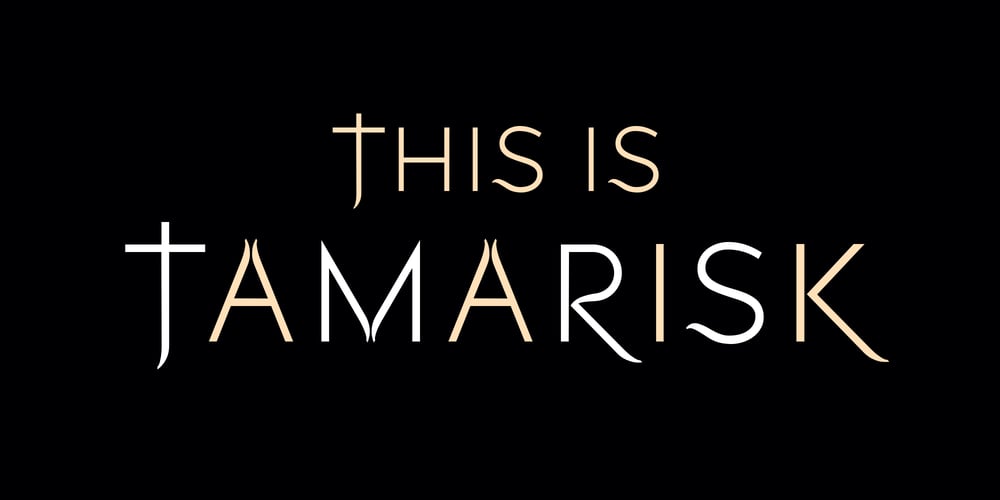
Tamarisk Font Family was designed by David Szabo and published by LostandFoundry. Tamarisk contains 2 styles and family package options. Tamarisk is another expressive new ‘crossover’ font for designers from LostandFoundry. This beautiful font has the look and feel of a modern sans-serif typeface, but with subtle ‘serif-like’ touches that give it a unique identity of classic, yet contemporary. With its distinctive A, M, V & W, Tamarisk was inspired by a rainy weekend watching ‘Crown’ and wanting to design a font that captured that world, but bringing it into the 21st century.Use Tamarisk freely in all your design projects – in headlines, logos, packaging designs, wedding designs, text and even t-shirt designs, when you want to bridge the modern, yet stylish and chic aesthetic.Or online in your websites, blogs, vlog titles, Youtube creator titles and social media post titles.Tamarisk supports French, German and other European Languages.